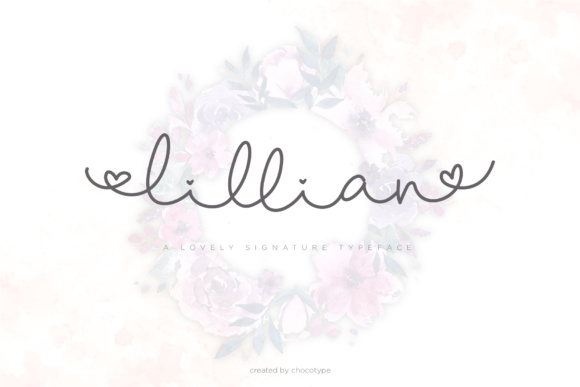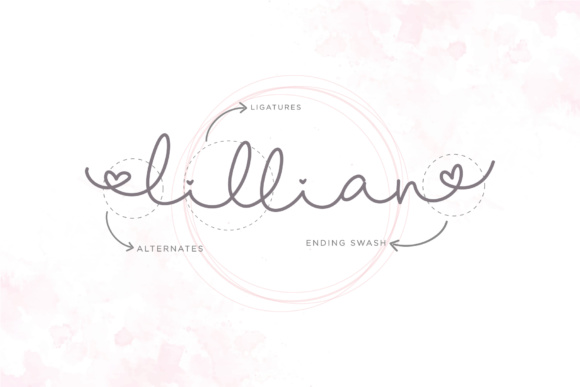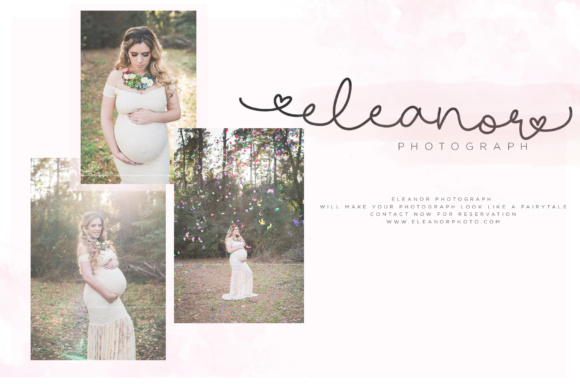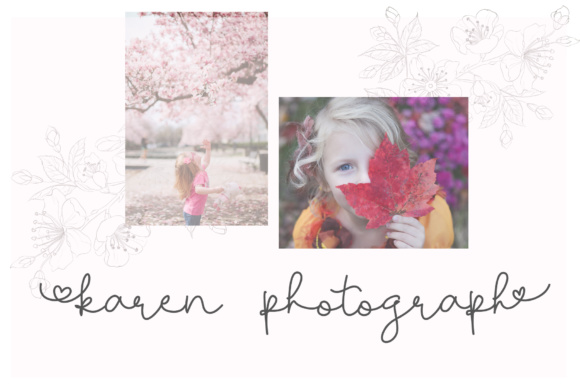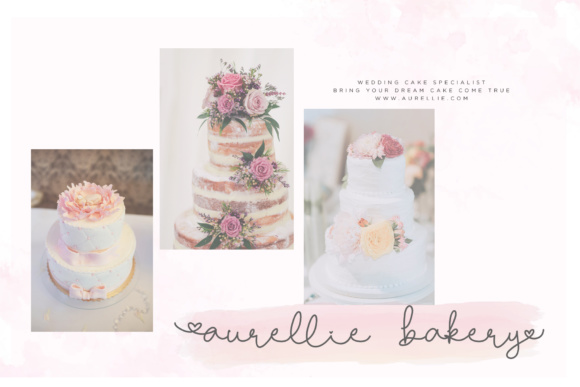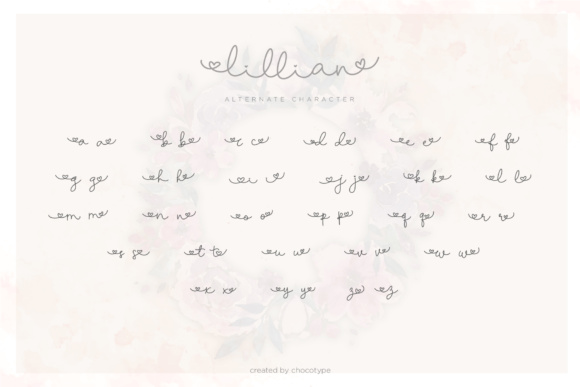
Lillian Script Font
About Lillian Script Font
The Lillian is a lovable script with bouncy swashes. It has a large variety of alternate characters, allowing you to make each word look completely unique to the next!